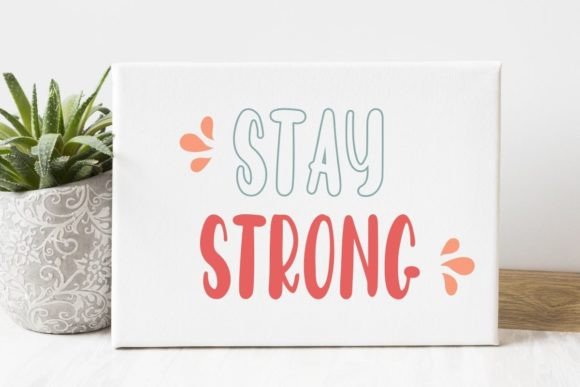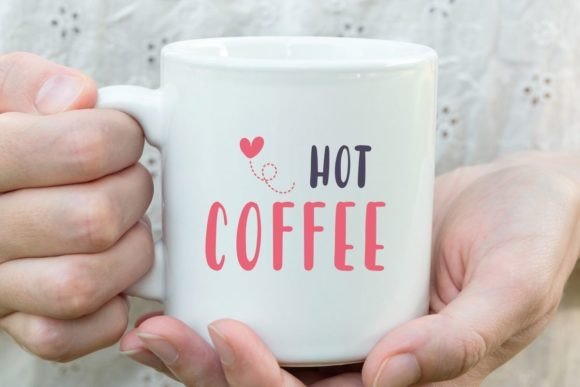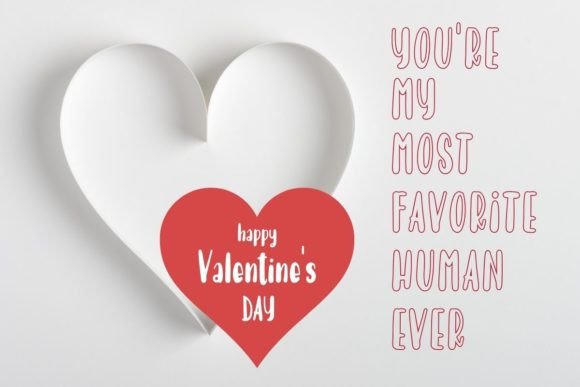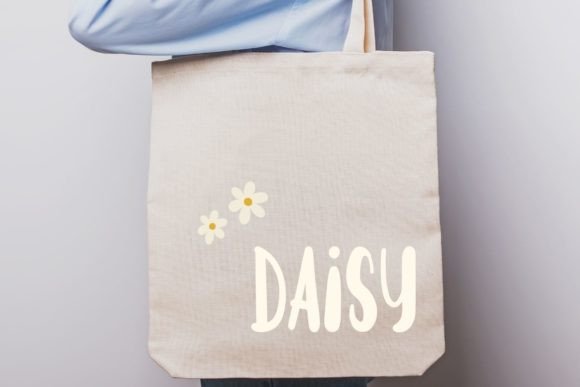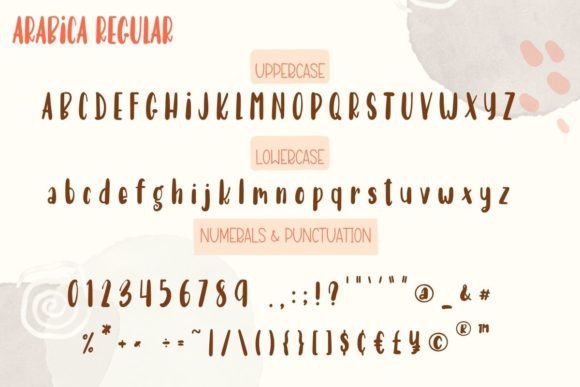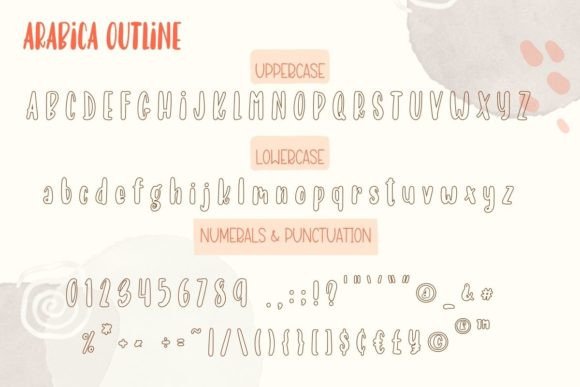
Discover the Perfect Blend for Your Designs
Do you remember that moment when you’re brainstorming ideas for a new project, and suddenly, the perfect font pops into your mind? It’s like finding the perfect coffee blend to get your creative juices flowing – a moment of pure design bliss! For designers, the right font can make all the difference between a good design and an exceptional one.
Introducing the Arabica Font, a delightful handwritten and display font designed to add a touch of personality to your creations. With its two styles – Regular and Outline – you’ll have endless possibilities for crafting unique designs that capture attention. Whether you’re creating banners, content, mugs, or social media posts, the Arabica Font is the perfect companion to help you bring your ideas to life.
Arabica Font Key Features
- Font Family: A high-quality, professional font family designed for various applications.
- Unique Characteristics: Features a unique blend of modern and traditional design elements, making it suitable for various design styles.
- Language Support: Supports multiple languages, including Latin, Arabic, and other languages with extended character sets.
Arabica Font Review
As a designer, I was excited to dive into the Arabica Font and see what it had to offer. Here’s my honest review:
- ✨ Elegant and refined design aesthetic, perfect for luxury brands and high-end projects
- ✨ High-quality typography, with smooth curves and precise letterforms
- ✨ Excellent legibility, making it easy to read even in smaller sizes
- ✨ Good font pairing options, suitable for a variety of design applications
- ⚠️ Limited language support, may not be suitable for projects requiring complex non-Latin scripts
- ⚠️ Not ideal for bold or dramatic typography, as it can come across as too refined
- ⚠️ Some users may find the font too modern or trendy, which may not be suitable for more traditional designs
Arabica Font is a beautiful and refined font that excels in luxury and high-end design applications. While it may have some limitations, its elegant design aesthetic and excellent legibility make it a great choice for designers looking to create sophisticated and polished typography.
Getting the Most Out of Arabica Font
For optimal results, use Arabica Font in combination with other elegant and minimalist design elements. Experiment with different font sizes and styles to achieve a cohesive look.
Arabica Font is ideal for:
– Luxury branding and packaging
– High-end marketing materials
– Elegant invitations and event materials
– Minimalist typography projects
Alternatives to Arabica Font
Playfair Display is a high-end serif font, ideal for luxury brands and high-end designs. It’s perfect for use in headings, titles, and other prominent text elements. Compared to Arabica Font, Playfair Display has a more elegant and sophisticated feel, with intricate details and ornate flourishes.
Merriweather is a classic serif font with a timeless feel. It’s suitable for use in body text, headings, and other text elements where a traditional look is desired. Compared to Arabica Font, Merriweather is more conservative and less ornate, making it a great choice for designs that require a sense of stability and trust.
Lato is a modern sans-serif font with a clean and minimalistic design. It’s perfect for use in body text, headings, and other text elements where a modern and sleek look is desired. Compared to Arabica Font, Lato is more straightforward and less ornate, making it a great choice for designs that require a sense of simplicity and clarity.
Montserrat is a geometric sans-serif font with a strong, urban feel. It’s suitable for use in headings, titles, and other prominent text elements where a modern and edgy look is desired. Compared to Arabica Font, Montserrat is more aggressive and less refined, making it a great choice for designs that require a sense of boldness and energy.
What is the character set of the Arabica Font?
The Arabica Font includes a comprehensive character set, including Latin, Cyrillic, and Greek scripts. It also includes a wide range of punctuation marks, numerals, and symbols. The font is designed to support a wide range of languages and is suitable for use in a variety of cultural contexts.